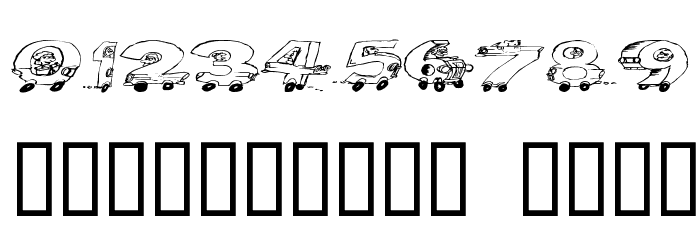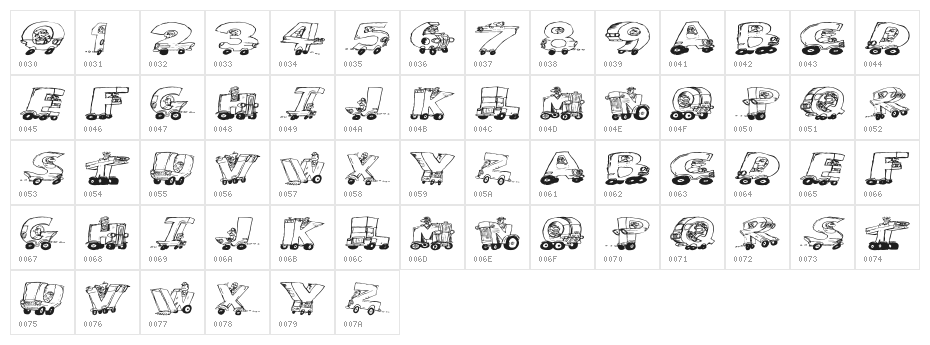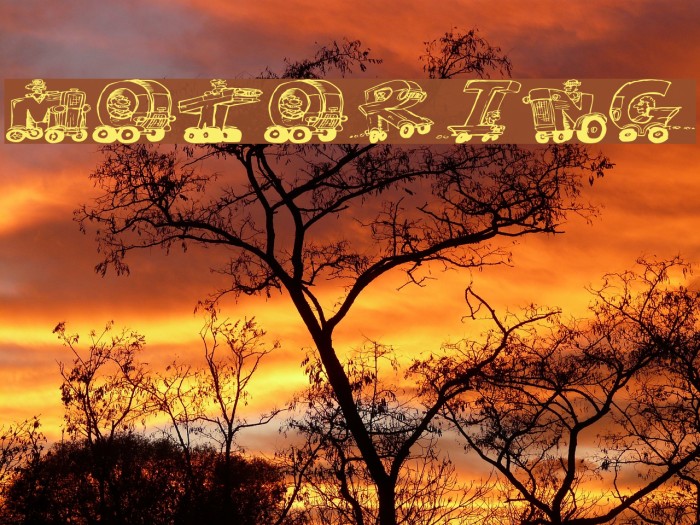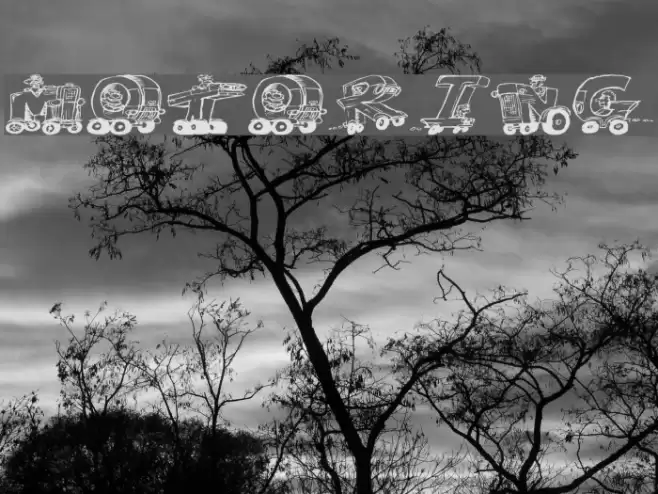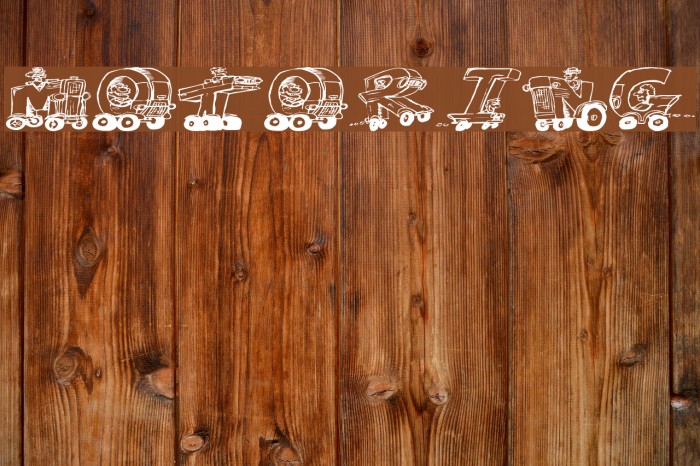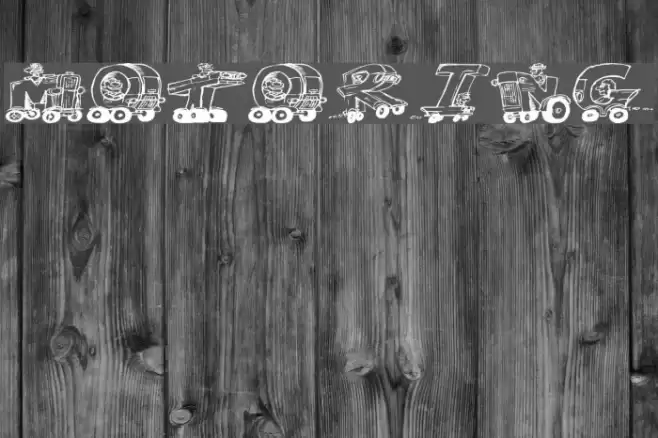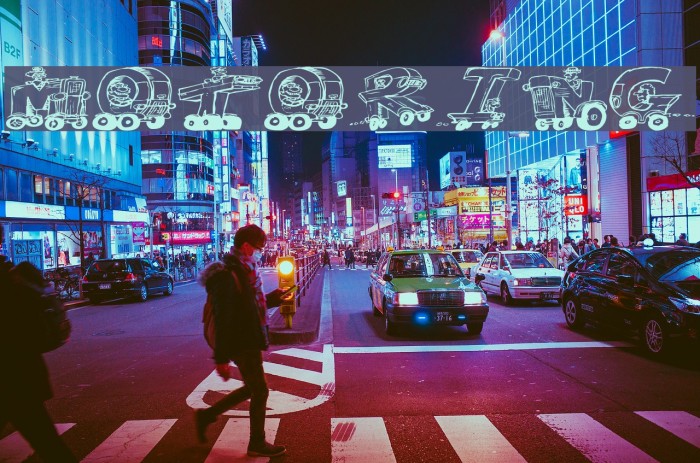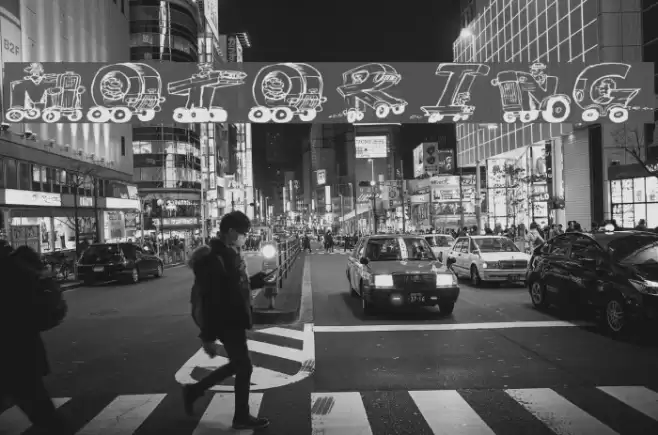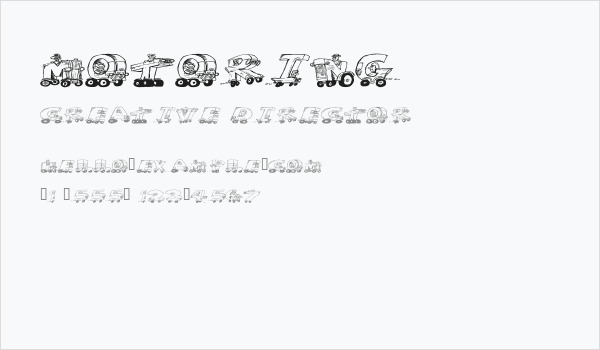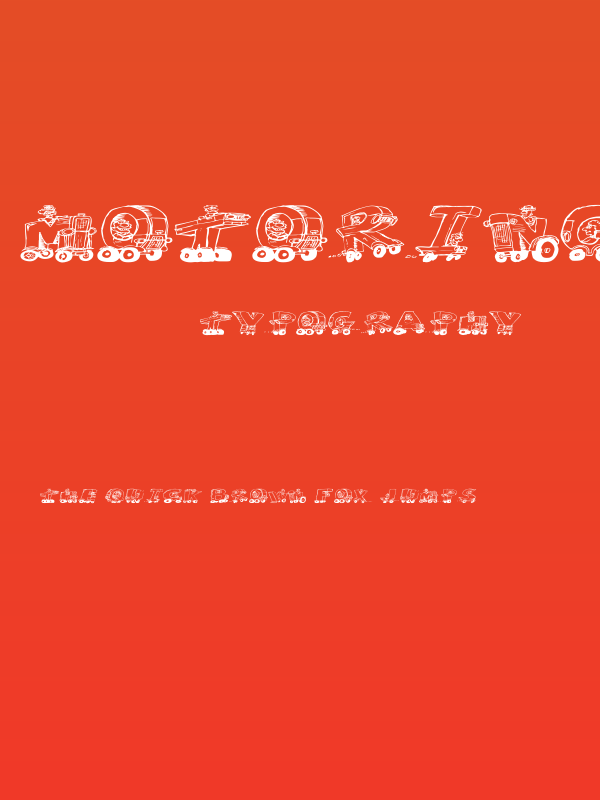
Motoring Font
Motoring Description
This playful and unique font features letters and numbers designed to resemble various vehicles, each character creatively integrated with elements like wheels and car bodies. The design is highly detailed, with each letter and number appearing as a distinct vehicle type, adding a whimsical and imaginative touch. The font is perfect for projects that require a fun and engaging visual element, particularly those aimed at children or automotive themes. The characters are bold and eye-catching, making them suitable for headlines or decorative purposes. The overall style is both modern and illustrative, capturing the essence of motion and adventure.
| Proposed Projects | Ideal for children's books, automotive-themed posters, educational materials, and playful branding. |